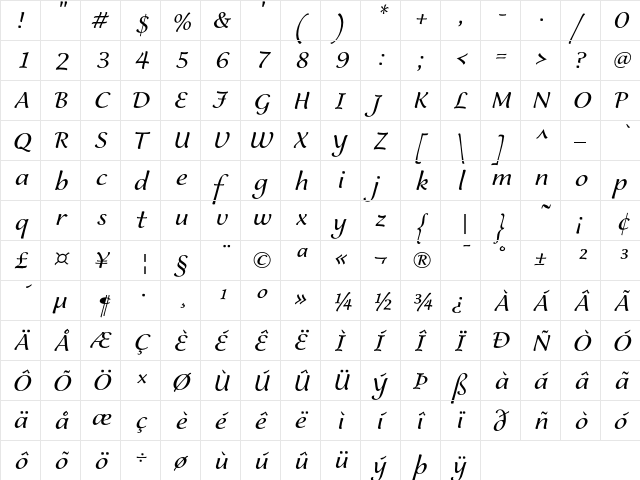
Kolibri Pro Regular
| Foundry | URW++ Design and Development GmbH Holmes |
| Designer | Kris Holmes |
Design Context for Kolibri Pro Typeface
Kolibri Pro offers clean, dependable letterforms without strong stylistic allegiance, making it a practical choice for designers who need flexibility.